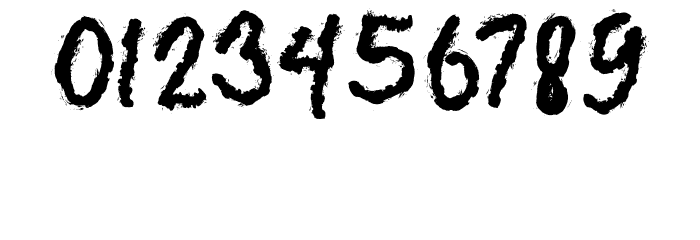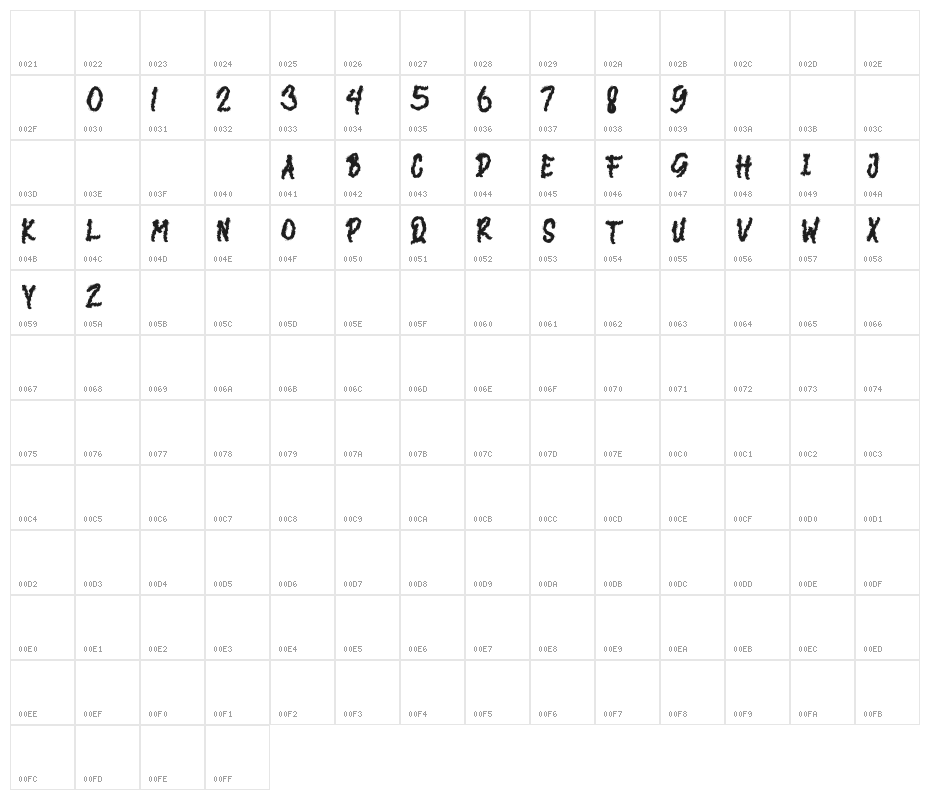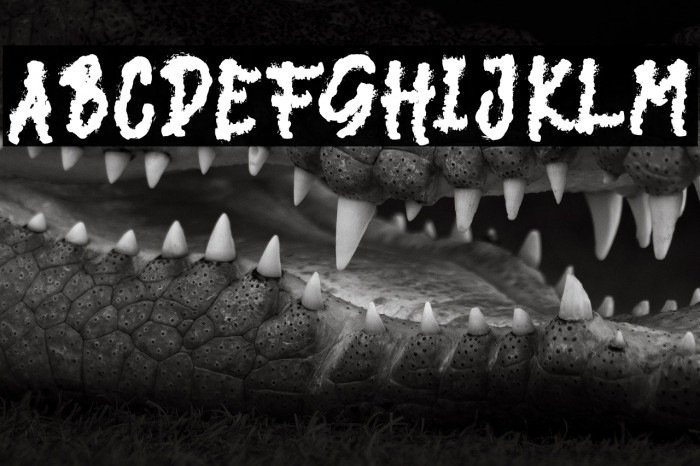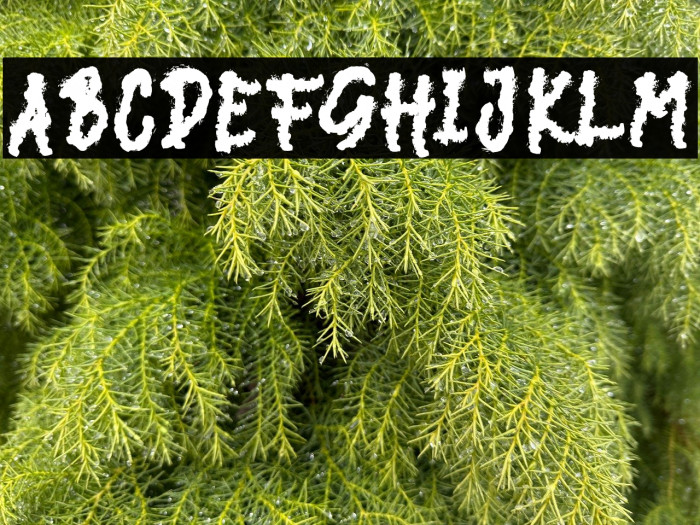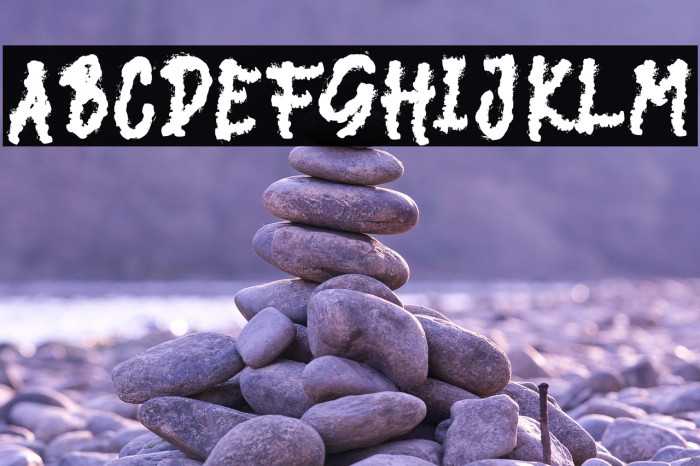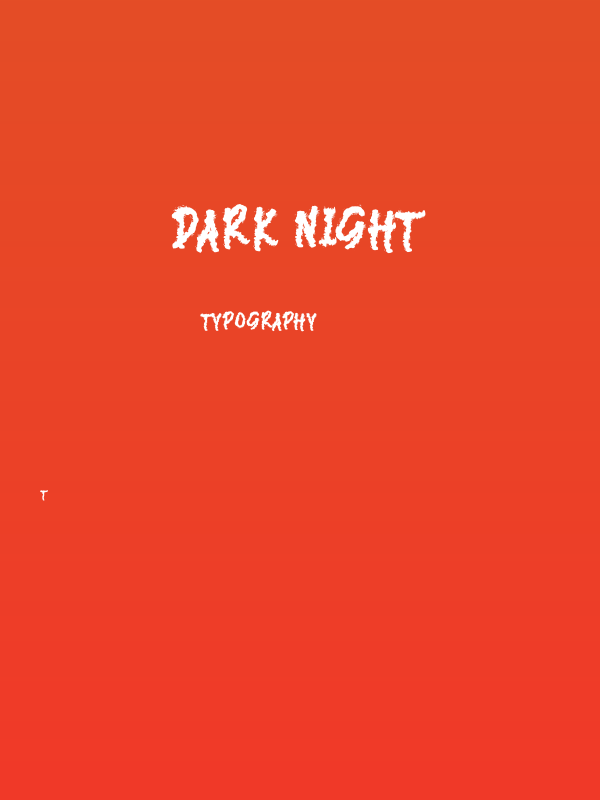
DARK NIGHT Font
DARK NIGHT Description
This font features a bold, textured style that evokes a sense of mystery and intensity. The characters are designed with a rough, distressed appearance, giving them a unique and edgy look. The uppercase letters are bold and prominent, while the numbers maintain the same rugged texture. This font is highly decorative, with each character appearing as if it has been hand-painted or spray-painted, adding to its dramatic flair. The overall design is perfect for projects that require a strong visual impact, such as posters, album covers, or themed events. The font's distinctive style makes it stand out, ensuring that any text using it will capture attention.
| Proposed Projects | Ideal for posters, album covers, themed events, and any project needing a dramatic, eye-catching font. |